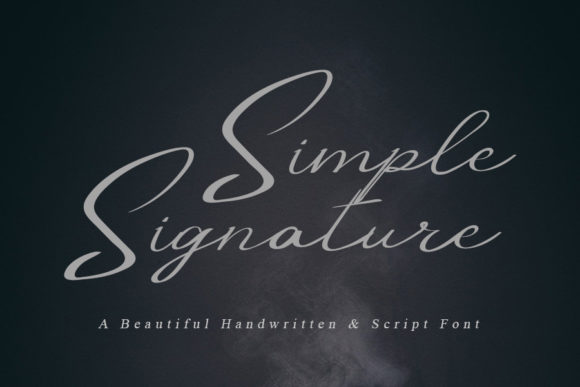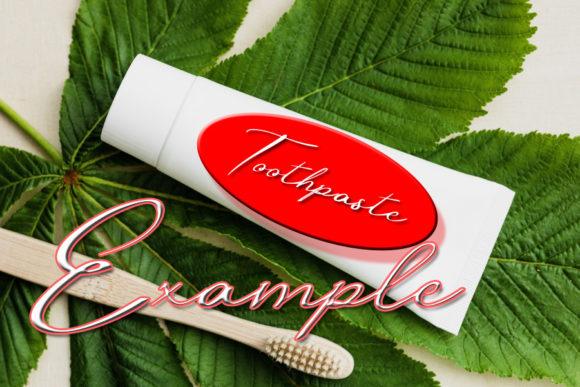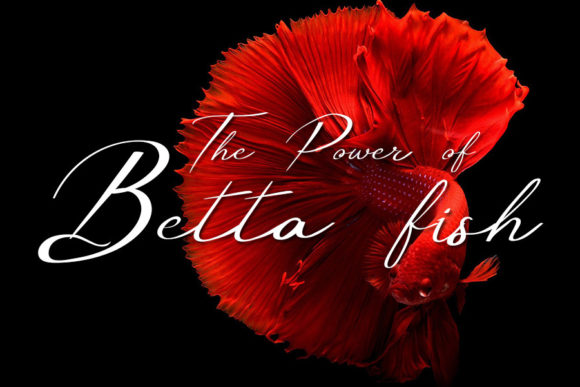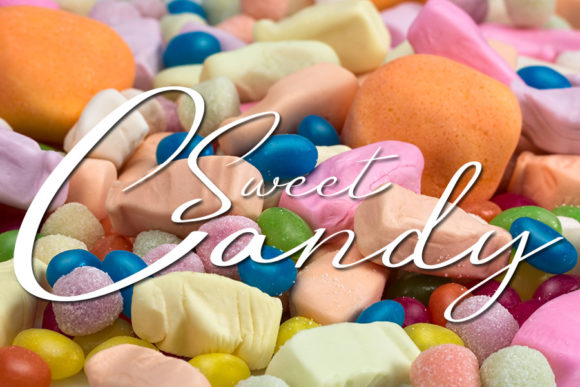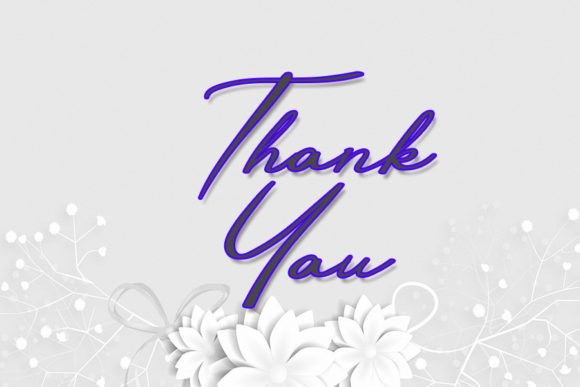
Simple Signature Font
About Simple Signature Font
Simple Signature is a delicate and elegant handwritten font that embodies a sense of grace and sophistication. With its distinct and well-balanced letters, this font is a masterpiece in itself. Fall in love with its incredibly versatile style and use it to create spectacular designs!
The beauty of Simple Signature lies in its refined and timeless appeal. Each letter is meticulously crafted, showcasing the perfect balance between simplicity and elegance. Whether you’re designing logos, creating invitations, or crafting stunning social media graphics, this font will elevate your designs to new heights.
The versatility of Simple Signature allows it to adapt to various design concepts and themes. Its clean and sleek appearance adds a touch of sophistication to any project. From branding materials to wedding stationery, this font will make your designs stand out with its distinct and captivating style.
Embrace the delicate and elegant nature of Simple Signature, and let it inspire your creativity. Whether used in print or digital mediums, this font will bring a touch of beauty and refinement to your designs. Fall in love with its versatility and witness how it transforms your ideas into spectacular creations.
So, indulge in the beauty of Simple Signature and let it be your go-to font for creating breathtaking designs. Whether you’re designing for personal or professional purposes, this font is sure to make a lasting impression.